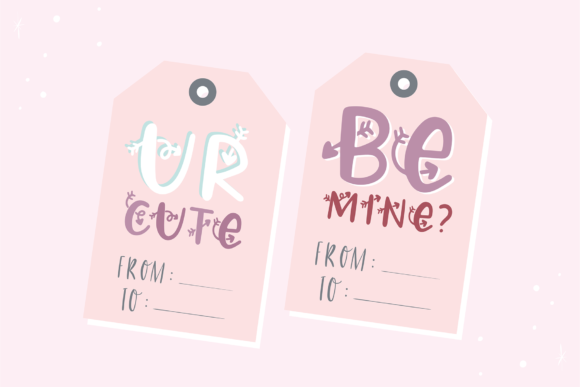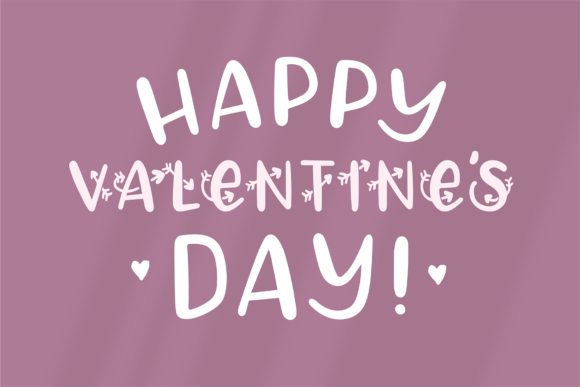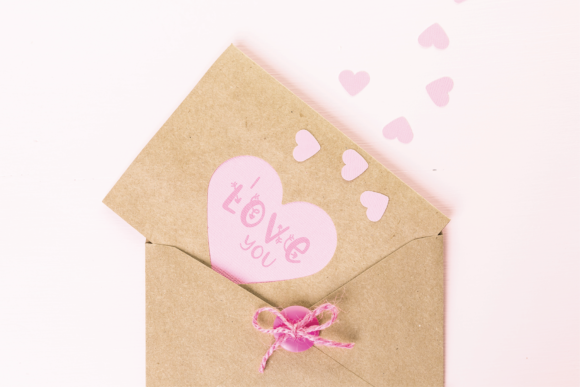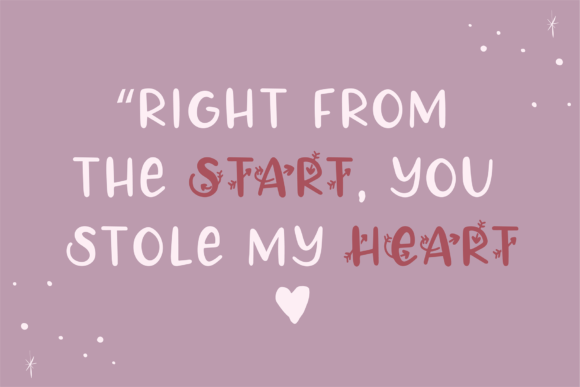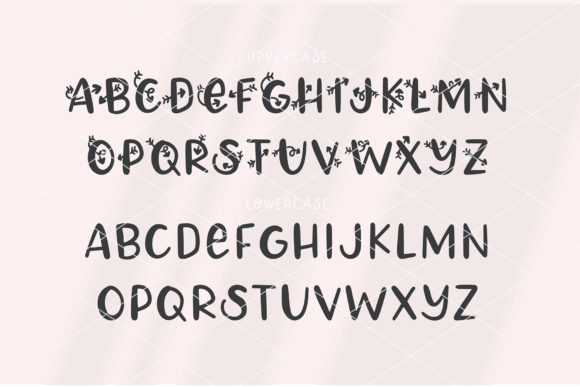
The Cupid Font: A Playful and Romantic Display Font for Creative Projects
I’ll never forget the time I was working on a Valentine’s Day-themed craft project for my niece’s school party. I had all the materials ready – paper, glue, scissors, and a plethora of colorful markers. However, as I sat down to create the perfect invitation, I realized I was stuck on one thing: the font. I wanted something that embodied the playfulness and romance of the holiday, but I just couldn’t find the right one. That was until I stumbled upon the Cupid font.
As soon as I saw it, I knew I had found the perfect fit. The Cupid font is a cute and romantic display font that embodies playfulness and authenticity, making it the perfect choice for any children’s activity or school project.
An Honest Review of Cupid Font
- ✨ The font’s playful and whimsical design makes it perfect for kids’ projects and school materials.
- ✅ It’s highly legible, even at smaller sizes, which is a huge plus for versatility.
- 💕 The romantic undertones make it an excellent choice for Valentine’s Day or love-themed projects.
- 🎨 The font’s unique character allows it to stand out from more traditional fonts.
While the Cupid font is fantastic, there are a few things to keep in mind:
- ⚠️ It may not be the best choice for very formal or professional projects, as it’s quite playful.
- 🤔 Some of the letters may be a bit too stylized for very short texts or headings, so use it where it can shine.
The Backstory of Cupid Font
The Cupid font was designed with love and care by a team of creatives who wanted to capture the essence of romance and playfulness in a digital font. Inspired by classic love letters and children’s drawings, Cupid brings a touch of whimsy and charm to any project. Whether it’s for a school activity, a craft project, or simply to add some love to your designs, Cupid is sure to delight.
Q: What makes Cupid font unique?
A: The Cupid font stands out due to its playful, romantic design that combines whimsy with elegance, making it perfect for children’s projects and love-themed designs.
Q: Is Cupid font suitable for body text?
A: While Cupid is primarily a display font, it’s legible enough to use for short paragraphs or captions, but it may not be ideal for extensive body text.